There are a lot of fonts in Canva. Like… a lot.
And honestly, that is kind of the problem.
You open Canva thinking you are just going to make a quick Pinterest pin, brand graphic, invitation, workbook page, or Instagram post, and suddenly you are 25 minutes deep in the font menu wondering why everything either feels too basic, too trendy, or just not quite right.
That is why I made this Type Drop!
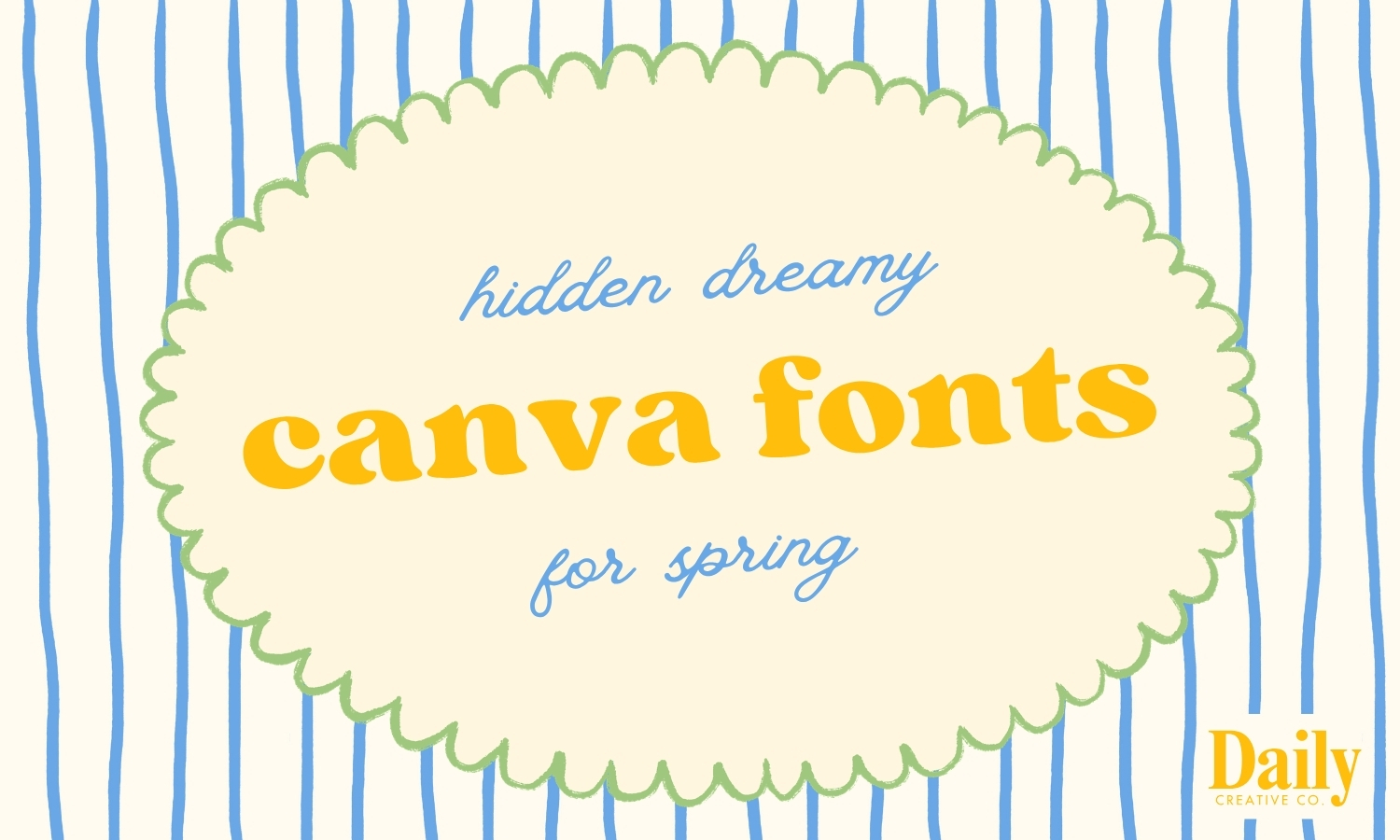
This archived Type Drop is a curated list of some of my favorite Canva fonts for creative projects. These are the kinds of fonts I would actually reach for when I want a design to feel more polished, more intentional, and a little more styled without having to start completely from scratch.
Originally, this was shared as a spring Type Drop, so it has a fresh, pretty, creative feel to it. But the fonts themselves are not locked into one season. You can use them year round for branding, Pinterest graphics, invitations, social content, digital products, moodboards, and whatever else you are making.
Why Canva Fonts Can Be So Hard to Choose
Canva makes design easier, but font choice is still one of those things that can make or break the whole design.
A good font can make something feel custom.
A bad font can make a perfectly fine layout feel unfinished.
And the tricky thing is, a font can be cute on its own and still not work in the design you are making. Some fonts are hard to pair. Some are only good for one very specific style. Some feel like everyone is using them. Some just do not have enough personality.
So instead of making you dig through the entire Canva font library, I pulled together a smaller, more curated list of Canva fonts that feel useful, pretty, and actually design-friendly.
Think of it as a better starting point.
What This Type Drop Is Good For
This Canva font list was made for the kinds of projects where you want the design to feel a little more elevated, but you still need it to be easy to use.
It would be perfect for things like:
Branding and logo concepts
Pinterest pins
Instagram graphics
Moodboards
Digital products
Workbooks and PDFs
Website graphics
Invitations and stationery
Packaging mockups
Seasonal graphics
Small business content
Creative project inspiration
Basically, if you are making something in Canva and you want it to feel less random and more styled, this Type Drop gives you a place to start.
Best Canva Fonts for a More Styled Look
When I am looking for good Canva fonts, I am usually not just looking for the most decorative option.
I am looking for fonts that create a feeling.
Something soft and romantic.
Something clean and editorial.
Something playful and hand drawn.
Something bold and a little nostalgic.
Something simple enough to use, but still interesting enough to make the design feel special.
That is the difference between a font that just fills space and a font that actually does something for the design.
The best Canva fonts are not always the loudest ones. Sometimes the best font is the one that makes the whole piece feel more balanced, more expensive, or more finished.
A Little Spring Inspiration
Since this Type Drop was originally created with a spring feel in mind, it works really well for fresh, light, pretty projects.
I love these kinds of fonts for spring moodboards, wedding content, Mother’s Day graphics, soft branding, floral designs, seasonal Pinterest pins, and creative business content that needs a little refresh.
But I would not only use them in spring.
A pretty Canva font can work for a summer launch, a soft brand identity, a digital product, a boutique logo concept, or an invitation suite just as easily. The spring angle is really just the starting mood, not the rule.
How I Would Use These Fonts
If you are using this Type Drop, I would not overthink it.
Pick one font that has the most personality and let that be the main moment. Use it for the headline, the brand name, the big phrase, or the part of the design you want people to notice first.
Then pair it with something simpler.
That is usually where the design starts to come together.
A display font with a clean sans serif.
A pretty serif with a simple body font.
A handwritten font used as a tiny accent.
A bold font with plenty of breathing room around it.
You do not need five fonts in one design. Most of the time, two is plenty. Three if one of them is only being used as a small detail.
The goal is not to make the font list do all the work. The goal is to use the fonts in a way that makes the whole design feel more intentional.
Who This Type Drop Is For
This Type Drop is for anyone who uses Canva but wants their designs to feel a little less like Canva.
It is for the person making Pinterest pins for their blog or shop.
The small business owner trying to make their brand graphics look more pulled together.